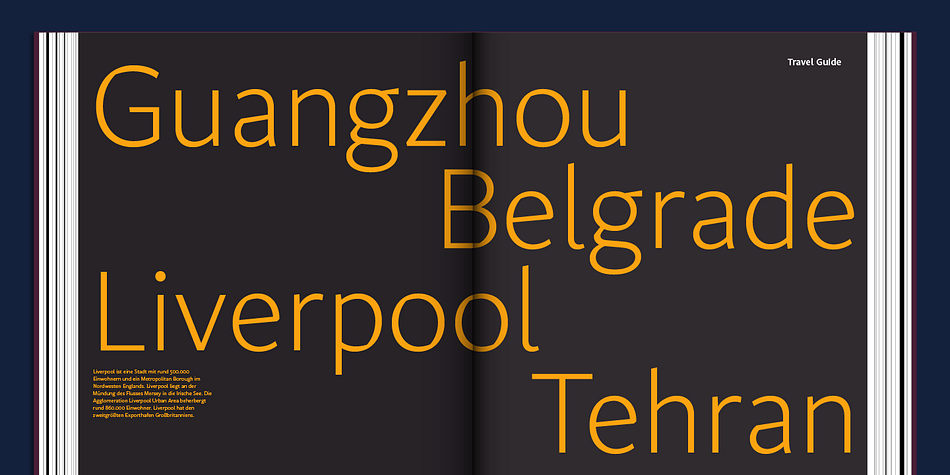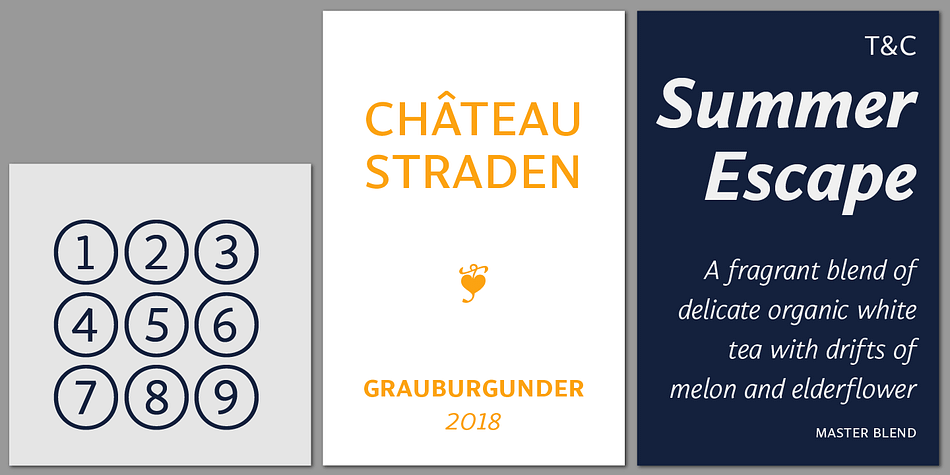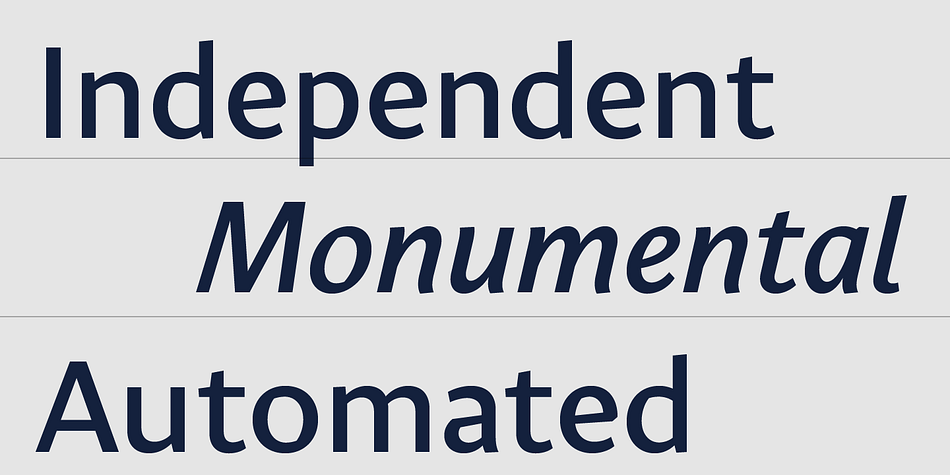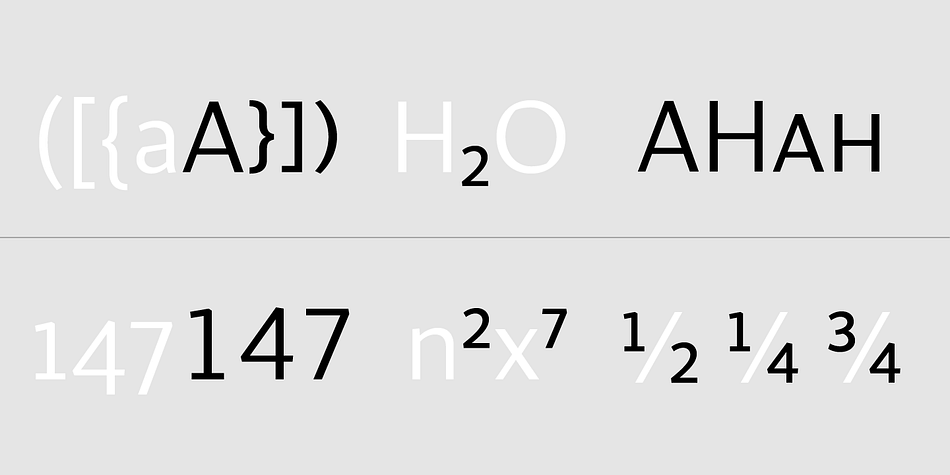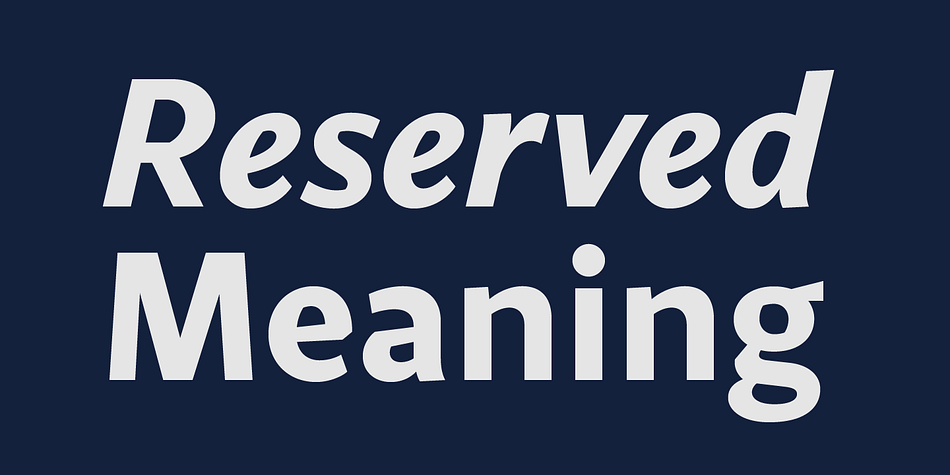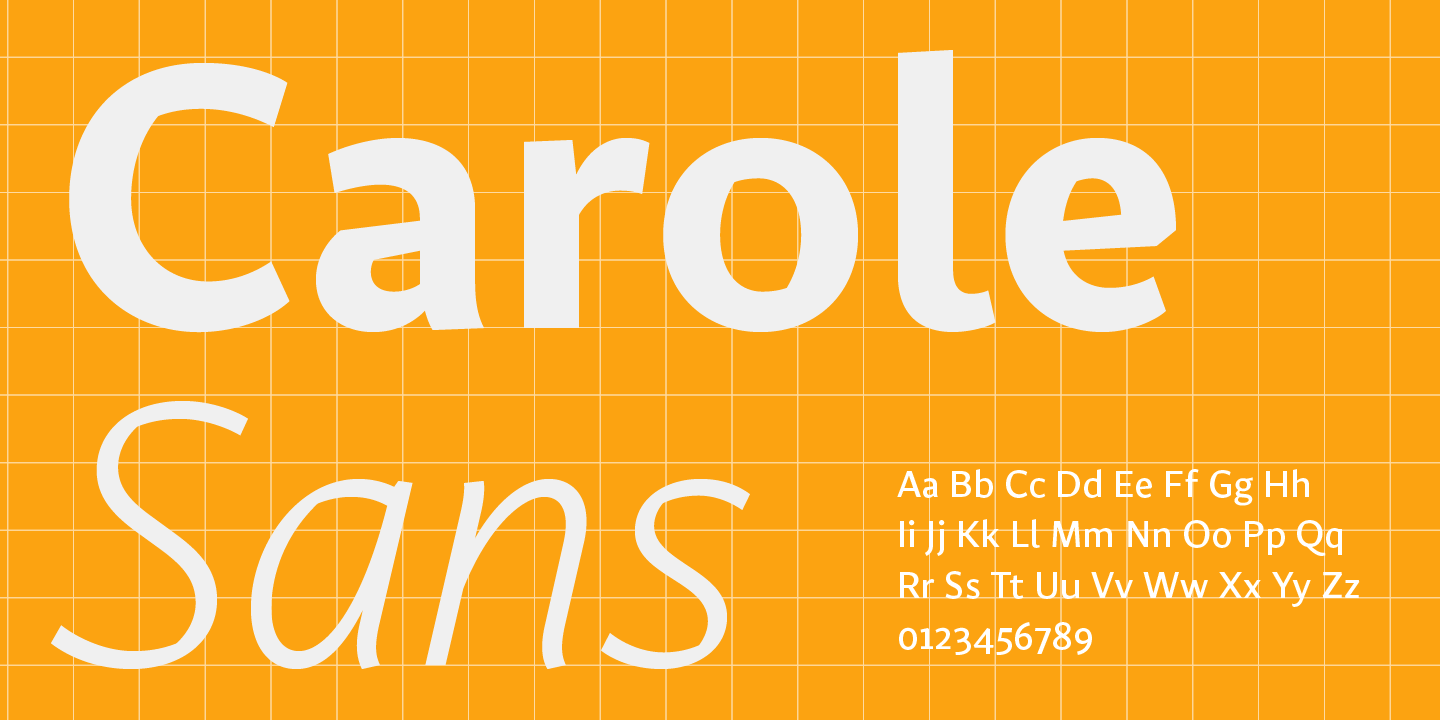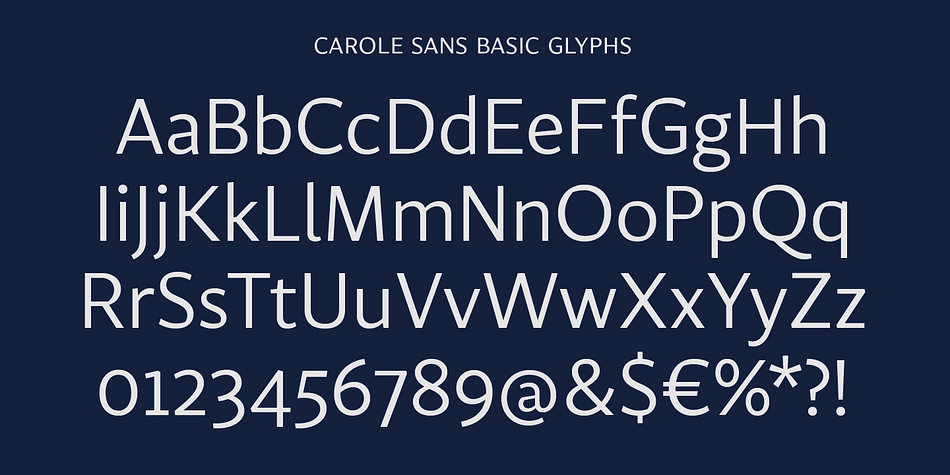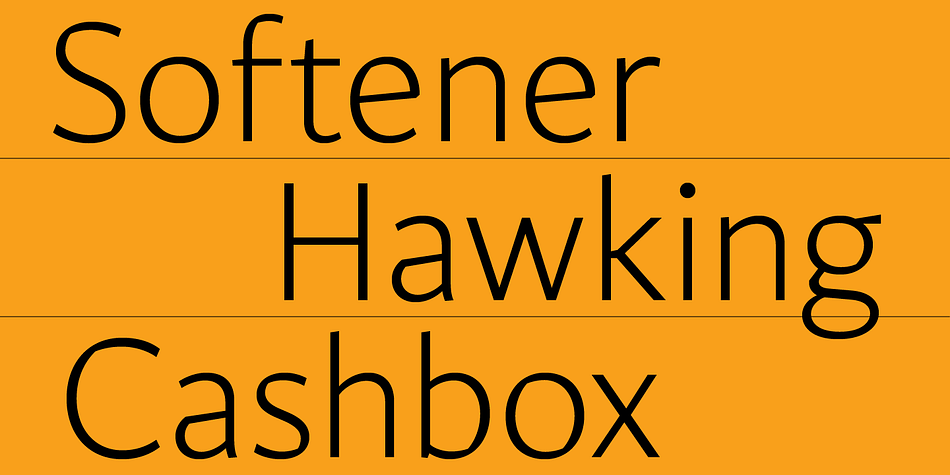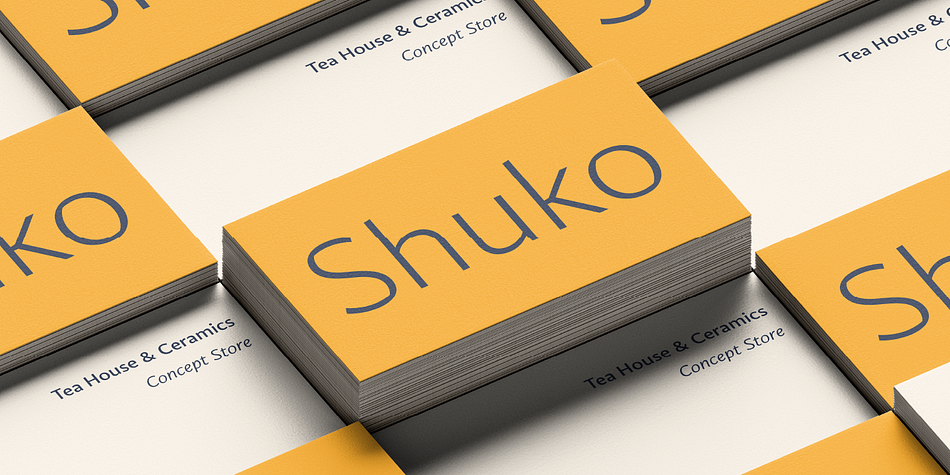
Carole Sans
Designed by Matz Gasser and Helene Krieger, Carole Sans is a sans serif font family. This typeface has fourteen styles and was published by Schriftlabor.
Carole Sans is the sibling to Carole Serif, a modern interpretation of the old-style serif model. Carole Sans follows the same skeleton and proportions, while creating a strong distinct texture with a wider range of weights. It performs great in small sizes, yet offers tons of character for packaging or editorial design.
Designed by Matz Gasser and Helene Krieger.
Foundry Schriftlabor
Designers Matz Gasser, Helene Krieger